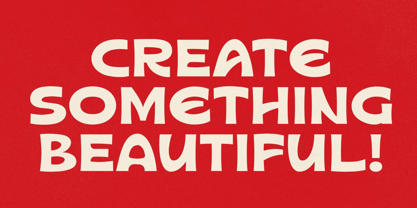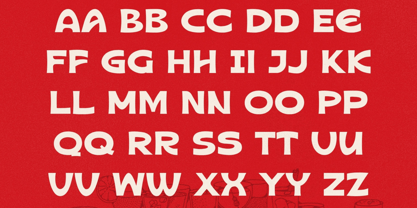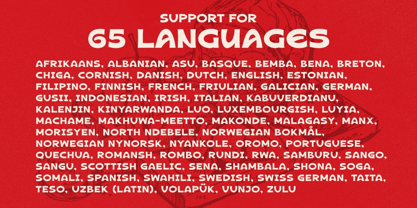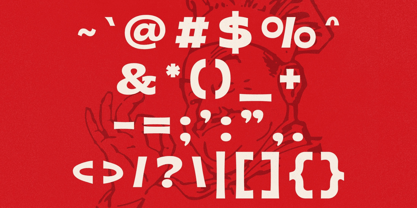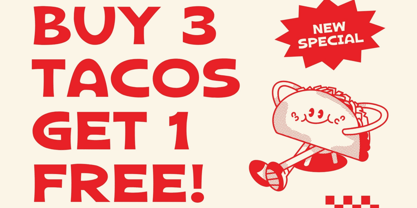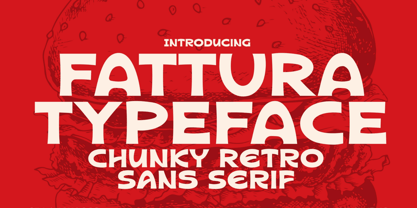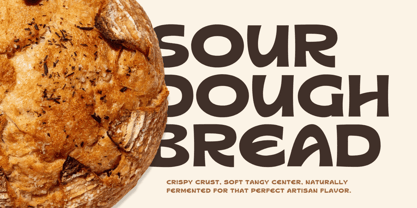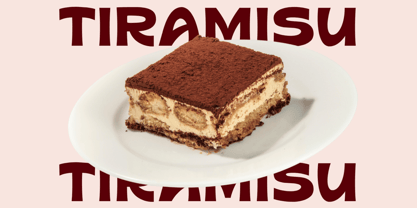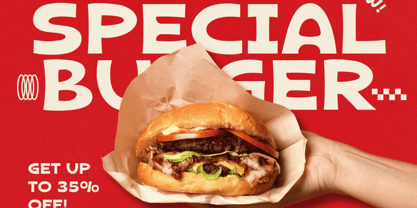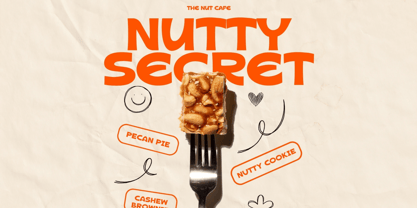
Fattura
The Fattura Font Family was designed by Igor Ovsyannykov and published by Hipfonts. Fattura contains 1 styles. More about this family
Fattura is a bold, chunky modern sans serif that commands attention with confidence and charm. Built with thick, sculpted forms and smooth rounded curves, this typeface strikes the perfect balance between strength and playfulness. Its soft geometry gives it a friendly, approachable feel, while the solid structure ensures it stands out powerfully in any composition.
Designed for impact, Fattura thrives in bold, contemporary design work. The carefully balanced proportions make it ideal for large-scale typography without sacrificing clarity or readability. Every letter feels intentional—clean, punchy, and full of personality—making it a versatile choice for designers who want to make a statement.
Whether you're crafting standout logos, eye-catching posters, or engaging social media visuals, Fattura delivers a fresh, modern aesthetic with a fun twist. It’s a go-to font for projects that need to feel bold, stylish, and effortlessly memorable.